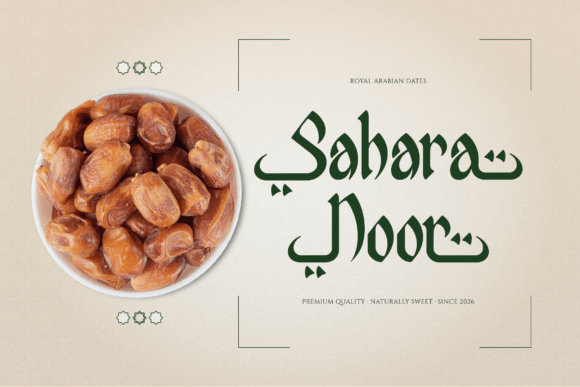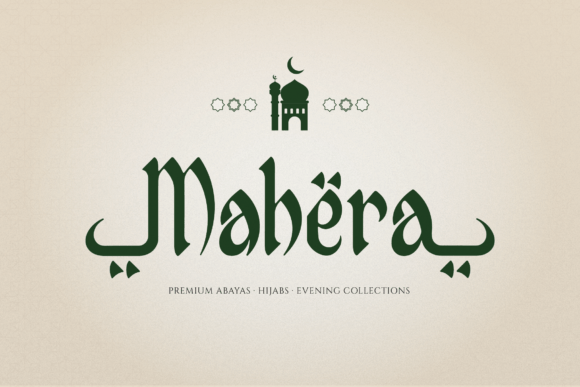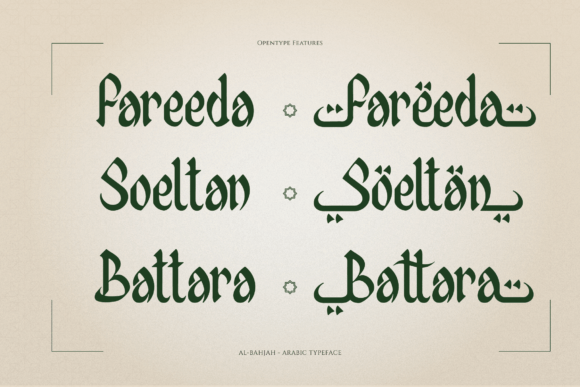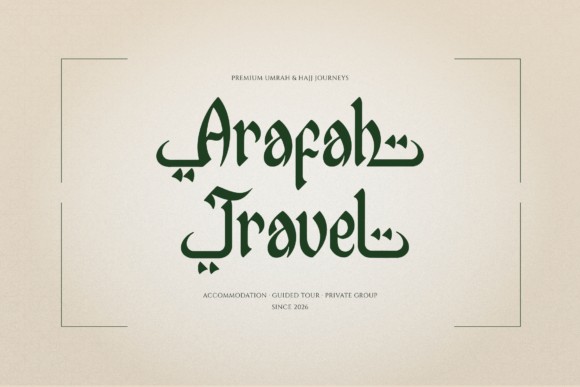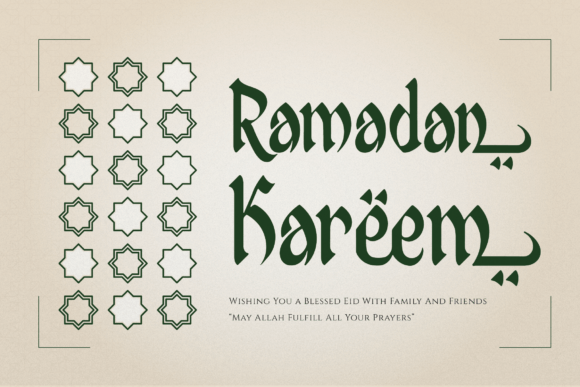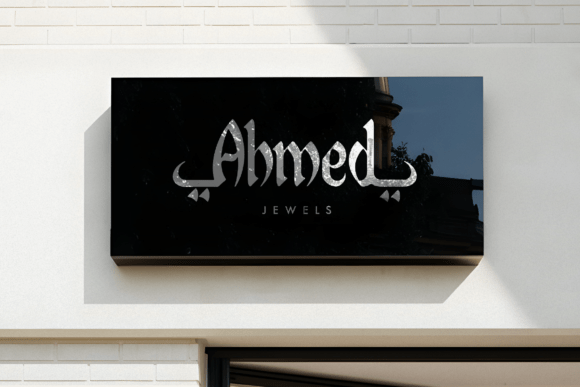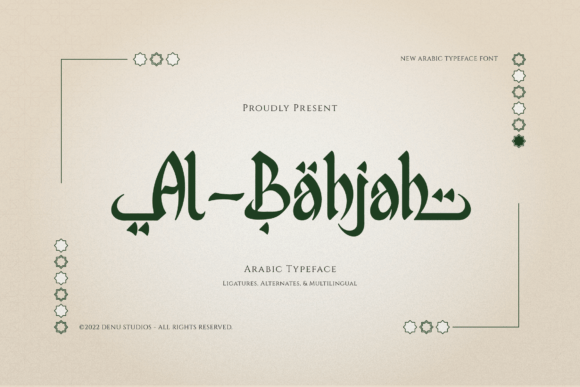
Discover the Elegance of Al Bahjah Font: A Masterful Blend of Tradition and Modernity
In the realm of typography, few fonts manage to capture the essence of cultural heritage while embodying modern aesthetics. Al Bahjah Font is one such remarkable typeface that seamlessly bridges the traditional with the contemporary, offering a stunning Arabic-style design that redefines the boundaries of font craftsmanship. This article delves into the unique features of Al Bahjah, exploring its design elements, use cases, and the distinctive charm it brings to visual projects.
The Essence of Al Bahjah: A Deep Dive into Its Design
Al Bahjah is not just a font; it’s an experience. Inspired by the fluid, calligraphic strokes of traditional Arabic script, Al Bahjah reimagines these classic elements with a bold, contemporary weight. This fusion results in a typeface that is both timeless and cutting-edge, perfect for projects that demand a touch of elegance and authenticity.
Key Features of Al Bahjah Font
- Fluid Calligraphic Strokes: Al Bahjah retains the graceful flow of traditional Arabic calligraphy, infusing each letterform with a sense of movement and fluidity.
- Sharp Terminals: A defining feature of Al Bahjah is its sharp terminals, which add a crisp, modern edge to the font, setting it apart from more traditional typefaces.
- Intricate Ligatures: The font boasts an impressive array of ligatures, offering a bespoke feel that can elevate any text to a form of art.
- Expressive Alternates: With a range of alternate characters, Al Bahjah provides designers with the flexibility to create unique and varied typographic compositions.
Applications of Al Bahjah Font
Al Bahjah’s versatility makes it suitable for a wide range of design applications. Its distinctive blend of traditional and modern elements allows it to shine in various contexts:
- Middle Eastern-Themed Branding: For brands looking to evoke a sense of cultural heritage and authenticity, Al Bahjah offers a compelling choice.
- Exotic Restaurant Logos: Restaurants and culinary businesses aiming to convey an exotic, high-end dining experience can benefit from Al Bahjah’s elegant and sophisticated feel.
- Spiritual Editorial Headers: In editorial design, Al Bahjah can add a profound sense of spirituality and contemplation to headers and titles, particularly for content focused on cultural, religious, or philosophical themes.
- High-End Cultural Event Posters: For cultural events, exhibitions, or festivals, Al Bahjah can help create promotional materials that are both eye-catching and deeply resonant with the target audience.
The Impact of Al Bahjah on Visual Identity
Incorporating Al Bahjah into your visual identity can have a transformative effect. This font delivers a sense of unyielding professional authority combined with legendary artisanal grace. When used in headlines, Al Bahjah ensures that your message carries an authentic and unforgettable presence, setting your brand or project apart in a crowded marketplace.
Why Designers and Crafters Love Al Bahjah
Designers and crafters are drawn to Al Bahjah for several reasons:
- Uniqueness: In a sea of generic fonts, Al Bahjah stands out with its distinctive character and stylistic depth.
- Versatility: Its adaptability across different design contexts makes it a valuable addition to any designer’s toolkit.
- Cultural Resonance: For projects with a Middle Eastern theme or those seeking to evoke a sense of timeless elegance, Al Bahjah offers a meaningful and aesthetically pleasing solution.
In conclusion, Al Bahjah Font is a masterpiece of modern typography that pays homage to the rich tradition of Arabic calligraphy while embracing the boldness of contemporary design. Its unique blend of fluid strokes, sharp terminals, intricate ligatures, and expressive alternates makes it an extraordinary choice for designers and crafters looking to imbue their projects with a sense of cultural heritage and modern sophistication. Whether you’re working on branding, editorial design, or promotional materials, Al Bahjah is poised to elevate your visual identity to new heights of elegance and impact.